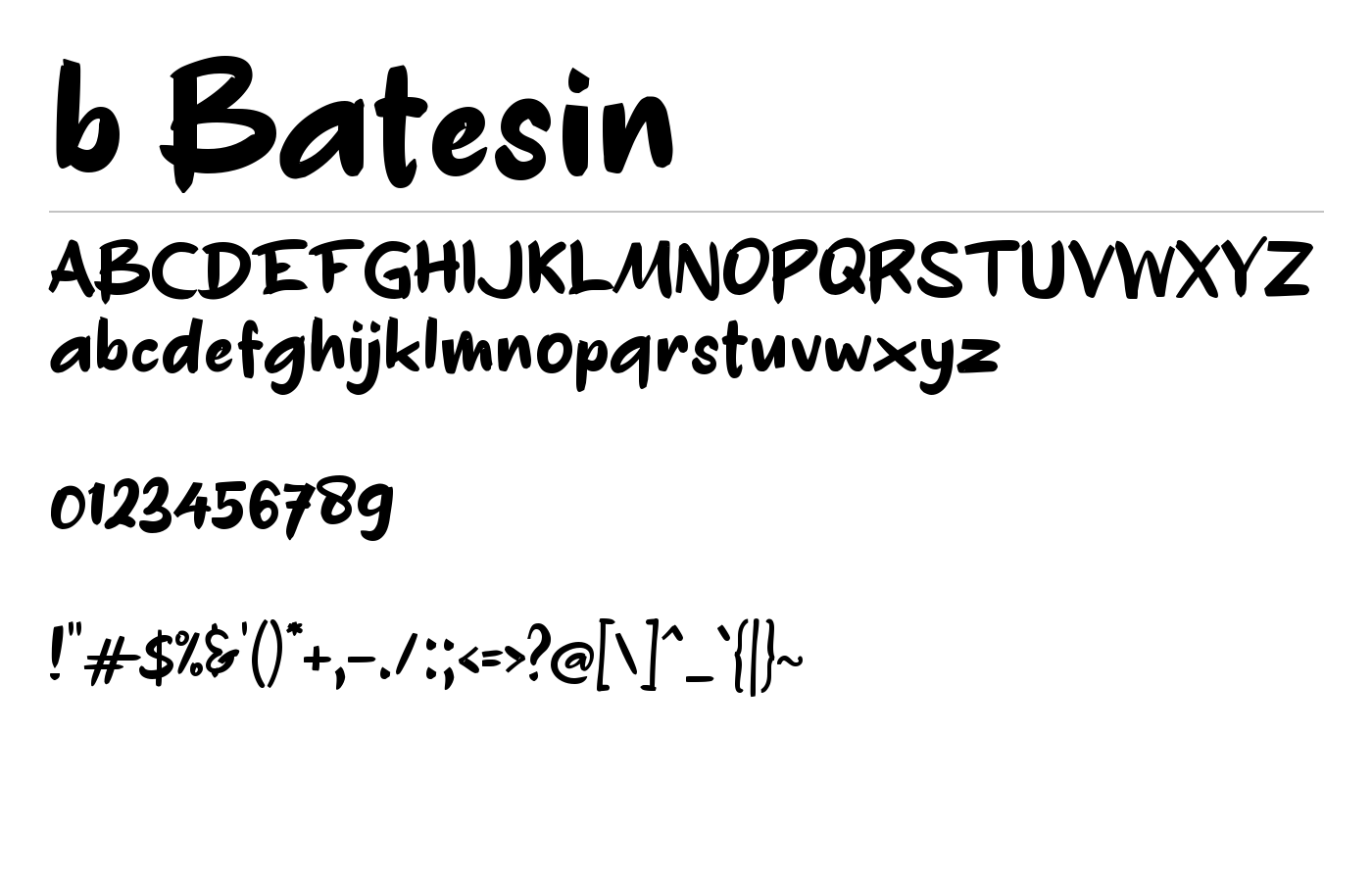
Batesin is a lively, casual handwritten sans serif font that features bold, slightly irregular strokes and a friendly, approachable feel. Its rounded, informal letterforms with medium x-height and playful curves make it ideal for creative projects, children's content, or personal branding that aims to convey warmth and personality. This font works well in headlines, logos, and packaging where a relaxed, informal touch is desired.
b Batesin Font
About b Batesin Font